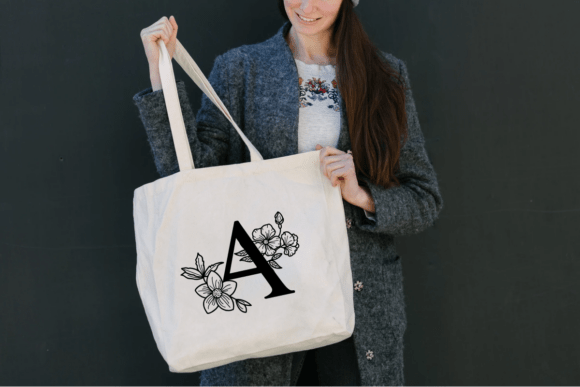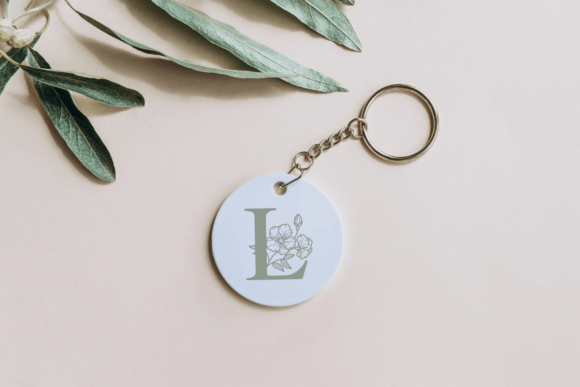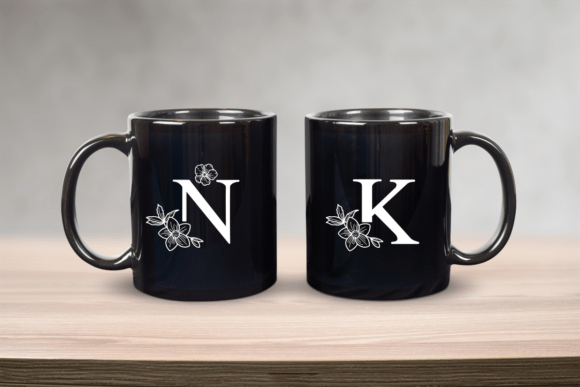
Flora Monogram Font
About the Flora Monogram Font
The wait is over! The incredible Flora Monogram Font is now available for your design toolkit. Flora Monogram is a beautifully refined decorative font that combines classic serif letterforms with delicate floral elements. Perfect for elegant branding, wedding invitations, packaging, or stationery, each character feels like a piece of art. Its timeless aesthetic adds sophistication to monograms, logos, and upscale editorial projects.
Flora Monogram excels in applications requiring a touch of refined elegance. Headlines, logos, and short-form text benefit most from its detailed design. It’s ideal for branding projects targeting luxury goods, high-end fashion, or sophisticated events. Avoid using it for large blocks of body text or UI elements where readability is paramount; the intricate details can hinder legibility.
Consider pairing Flora Monogram with a clean sans-serif like Montserrat for a modern contrast, or a classic serif such as Garamond for a more traditional feel. A script font like Great Vibes can add a touch of handwritten charm for invitations or packaging, while a geometric sans-serif like Futura could provide a striking juxtaposition for a more contemporary brand.
The overall personality of Flora Monogram is sophisticated and elegant, yet approachable. Its decorative elements lend a touch of femininity and romance without being overly fussy.
Flora Monogram Font Usage Examples
Flora Monogram Font Example